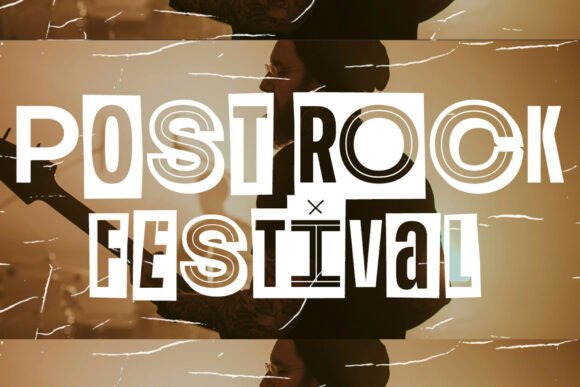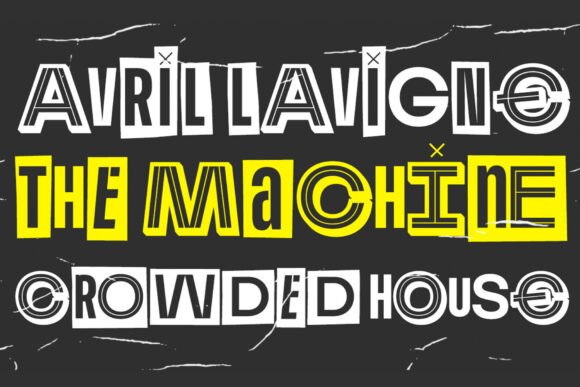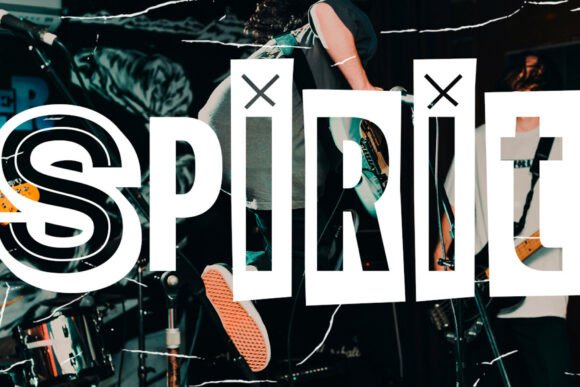
Introduction to Plex Mix Font
Have you ever been stuck in a creative rut, searching for the perfect font to bring your bold vision to life? You’ve scoured design resources, browsed font libraries, and experimented with endless combinations, but nothing seems to capture the energy you’re looking for. That’s where the Plex Mix Font comes in – a game-changing, high-quality font that’s about to revolutionize your creative project.
With its unique blend of stencil, geometric, and industrial grunge styles, Plex Mix Font is the ultimate design resource for anyone looking to add a touch of rebellious swagger to their work. Whether you’re designing eye-catching posters, edgy branding, or album covers, this font is sure to turn heads. And the best part? You can download it for free, complete with four font variations and a transparent background that’s perfect for any design.
Plex Mix Font
Honest Review: Plex Mix Font
I recently stumbled upon the Plex Mix Font while searching for a design resource to elevate my creative project. After giving it a try, I’m excited to share my thoughts on this font.
- ✨ High-quality design: The Plex Mix Font boasts a modern and sleek design that’s perfect for a variety of creative projects.
- ✨ Transparent background: The font’s transparent background makes it easy to use on any background image or color, giving you more creative freedom.
- ⚠️ Limited style options: While the font itself is high-quality, I wish there were more style options available to suit different design preferences.
- ⚠️ Not suitable for small text: I found that the font becomes difficult to read when used for small text, so it’s best to use it for larger headings and titles.
Overall, I’m impressed with the Plex Mix Font. Its high-quality design and free download make it a great resource for designers. However, the limited style options and readability issues prevent me from giving it a perfect score. Nevertheless, I would still recommend it to anyone looking for a modern and stylish font for their creative project.
Plex Mix Font
The Plex Mix Font is a versatile and high-quality design resource that offers a unique blend of styles and versatility. With a transparent background, it’s perfect for creative projects where you need a font that can adapt to different backgrounds.
Tips for Getting the Most Out of Plex Mix Font
Experiment with different font sizes and styles to achieve the desired look for your design project. You can also combine the Plex Mix Font with other design elements to create a unique and eye-catching design.
The Plex Mix Font is perfect for creative projects such as logos, business cards, and brochures. It’s also great for use in social media graphics, presentations, and other design projects where a high-quality font is needed.
As a free download, the Plex Mix Font is an excellent resource for designers and non-designers alike. With its transparent background and versatile styles, it’s the perfect addition to any design project.